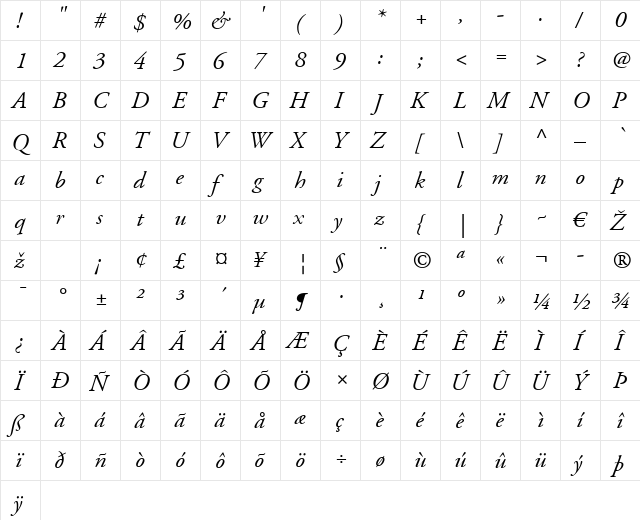
AGaramond LT Italic Font Preview
AGaramond LT Italic
AGaramond LT Italic Font Details
Design Context for AGaramond LT Typeface
AGaramond LT is a composed and adaptable typeface that performs quietly and consistently across a wide range of design contexts. The dynamic lean of this cut emphasises speed and emphasis in any layout. The delicate stroke weight brings airiness and refinement to layouts.
Pro Tip: Try AGaramond LT for annotation and caption copy alongside an upright companion — the contrast in angle creates a dynamic but ordered typographic system.